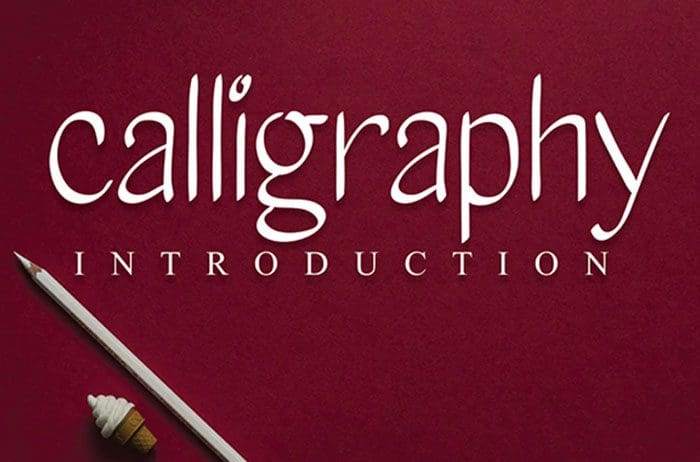
Calligraphy Handwritten Font
Calligraphy handwritten font, created with the help of a distinct brush pen. Fall in love with its incredibly versatile style and use it to create gorgeous wedding invitations, beautiful stationary art, eye-catching social media posts, and much more! Designed this font by Andika Studio. You can also search more freeĀ Handwritten Fonts.